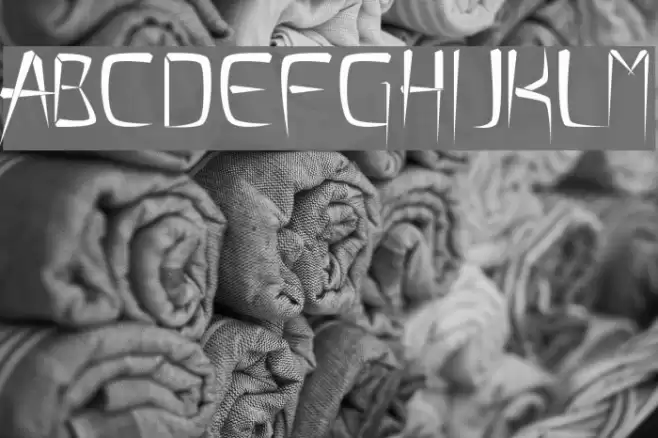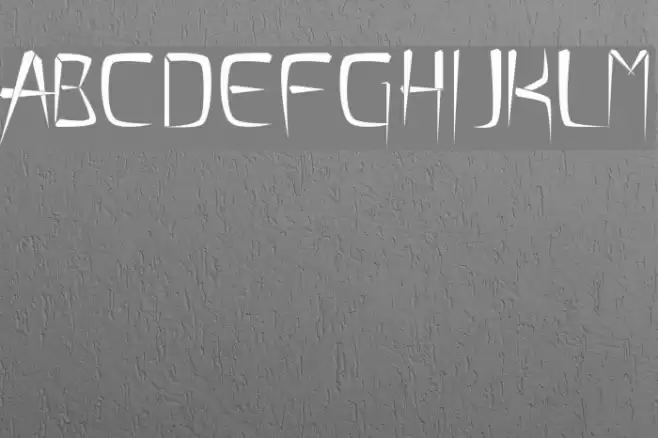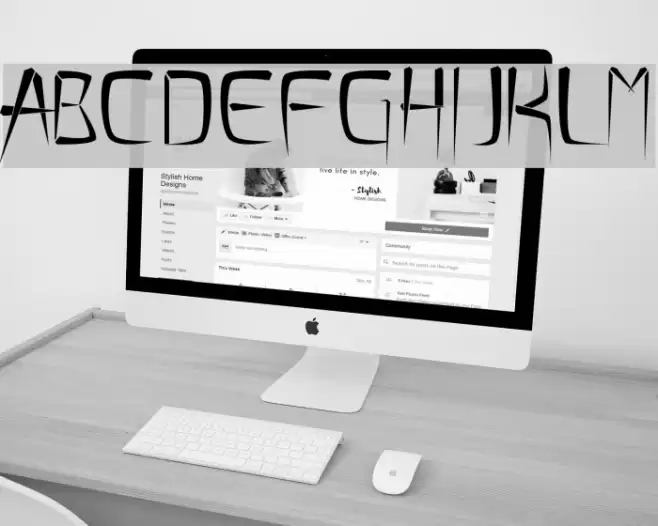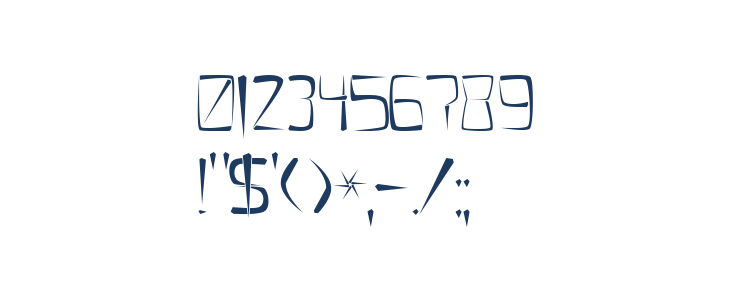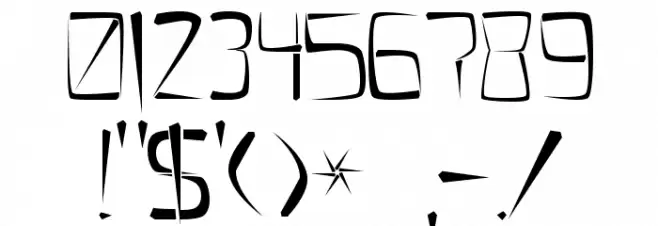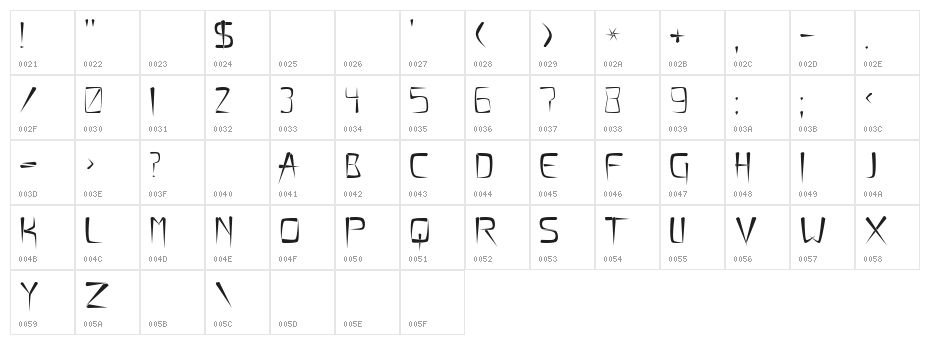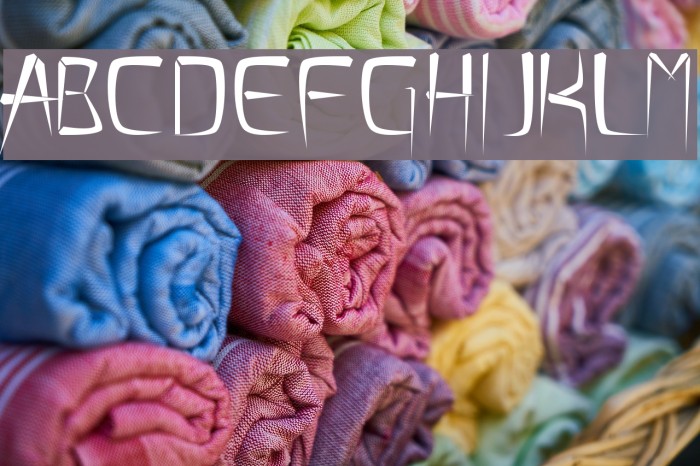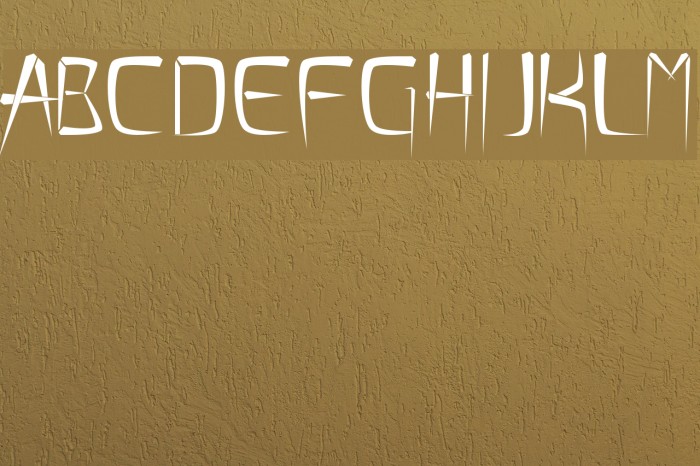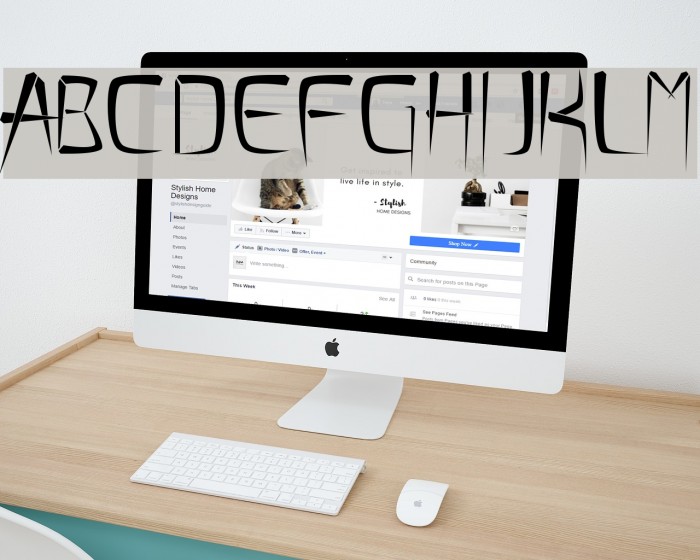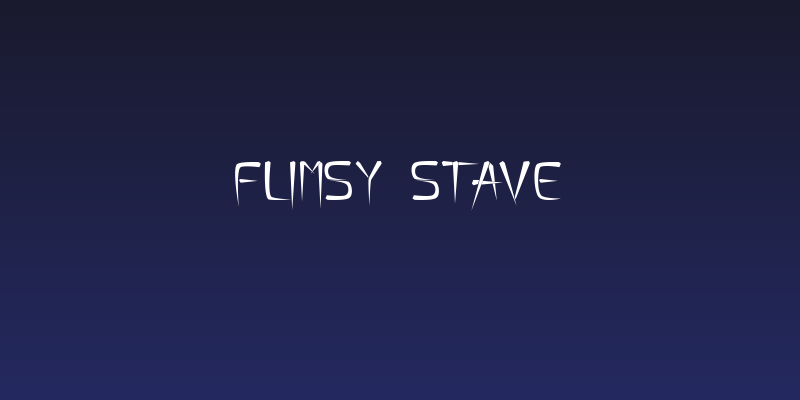
Flimsy Stave Font
Flimsy Stave Description
This font exhibits a unique and edgy style, characterized by sharp, angular lines and a slightly futuristic appearance. The uppercase letters are bold and striking, with elongated vertical strokes that give a sense of height and drama. The lowercase letters maintain a consistent style, with a more compact form that complements the uppercase. Numbers are distinct and maintain the angular theme, ensuring readability while adding a modern twist. Special characters are creatively designed, maintaining the overall aesthetic of the font. This font is ideal for projects that require a bold, attention-grabbing typeface with a modern edge.
A sharp, angular font with a futuristic and edgy style from Uncategorized fonts.
- Proposed Projects: Ideal for sci-fi themed designs, modern branding, posters, and album covers.